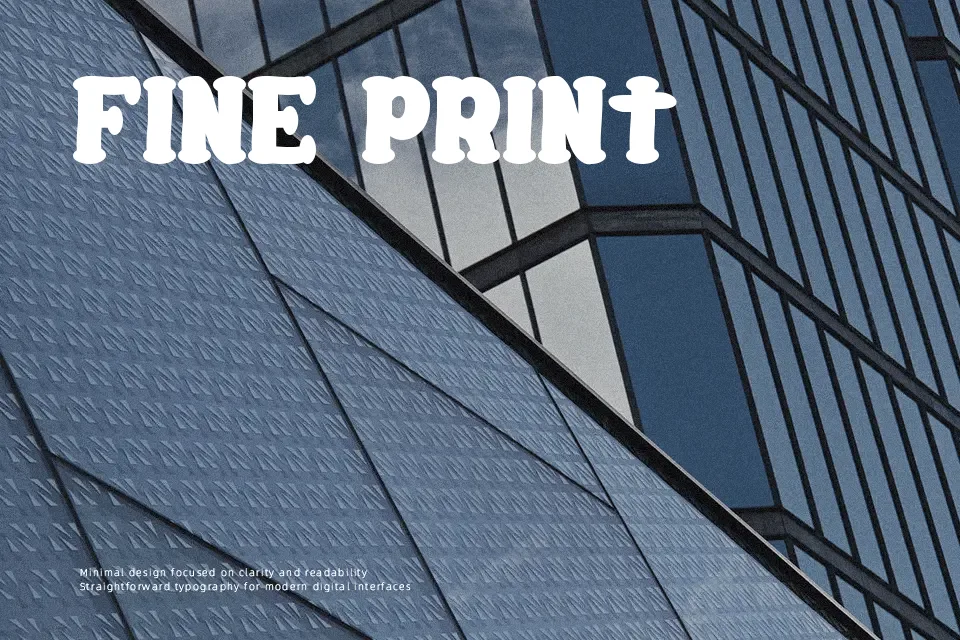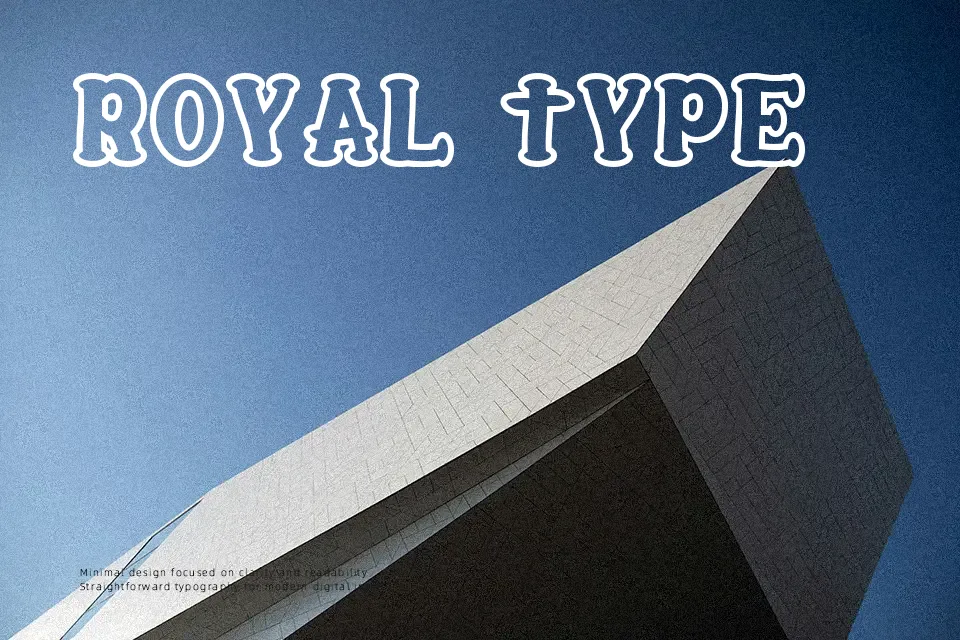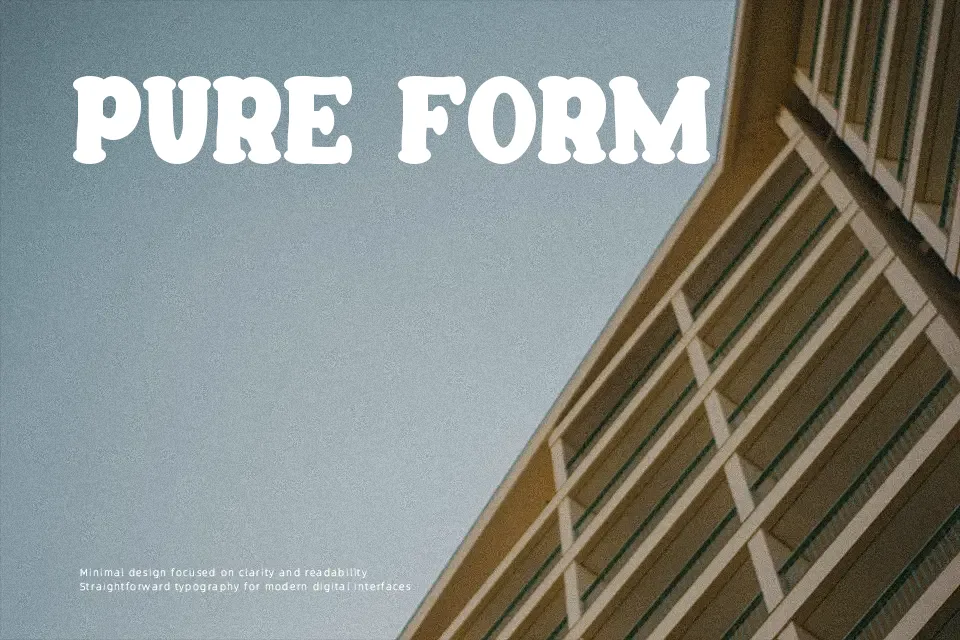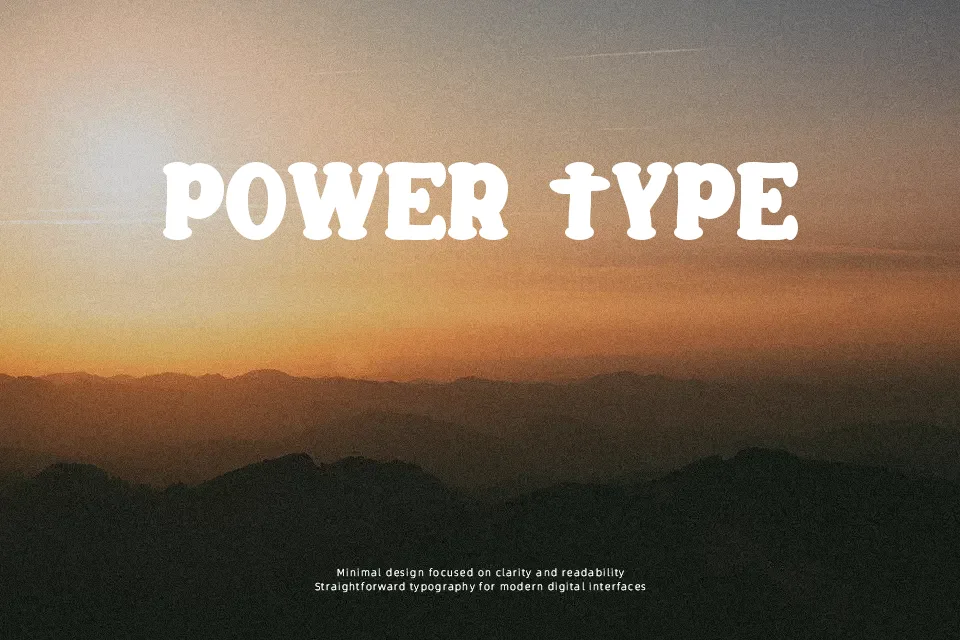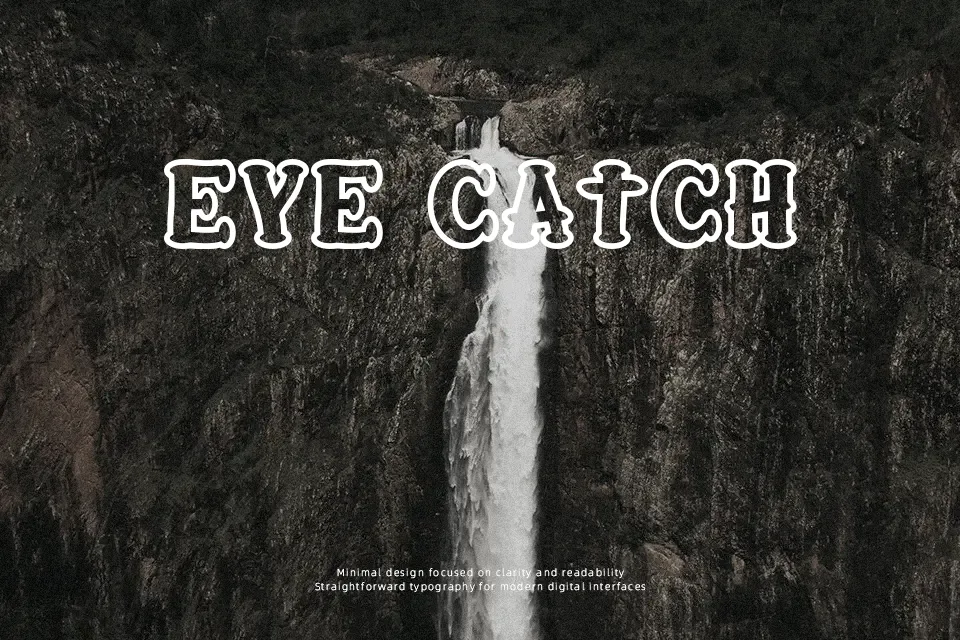
Popovers Font
Designed by Noah Type
Popovers Font brings a cheerful, bubbly energy to design projects through its heavily weighted, bouncy cartoon letterforms. The characters are constructed with thick, smooth strokes and slightly irregular proportions that create a fun, approachable rhythm across headlines. Spacing is comfortably tight, which helps maintain clarity in larger display text like snack packaging or children’s book covers. This bold design performs beautifully when scaling up for posters, as the chunky strokes improve visibility and visual impact. However, the decorative, playful nature of the typeface becomes less effective at smaller sizes, making it entirely unsuitable for long paragraphs or dense body text.
children’s book covers
casual mobile game interfaces
sweet snack packaging
playful event posters
corporate financial reports
Perfect for gaming, kids, and packaging, with a bubble and cartoon style.